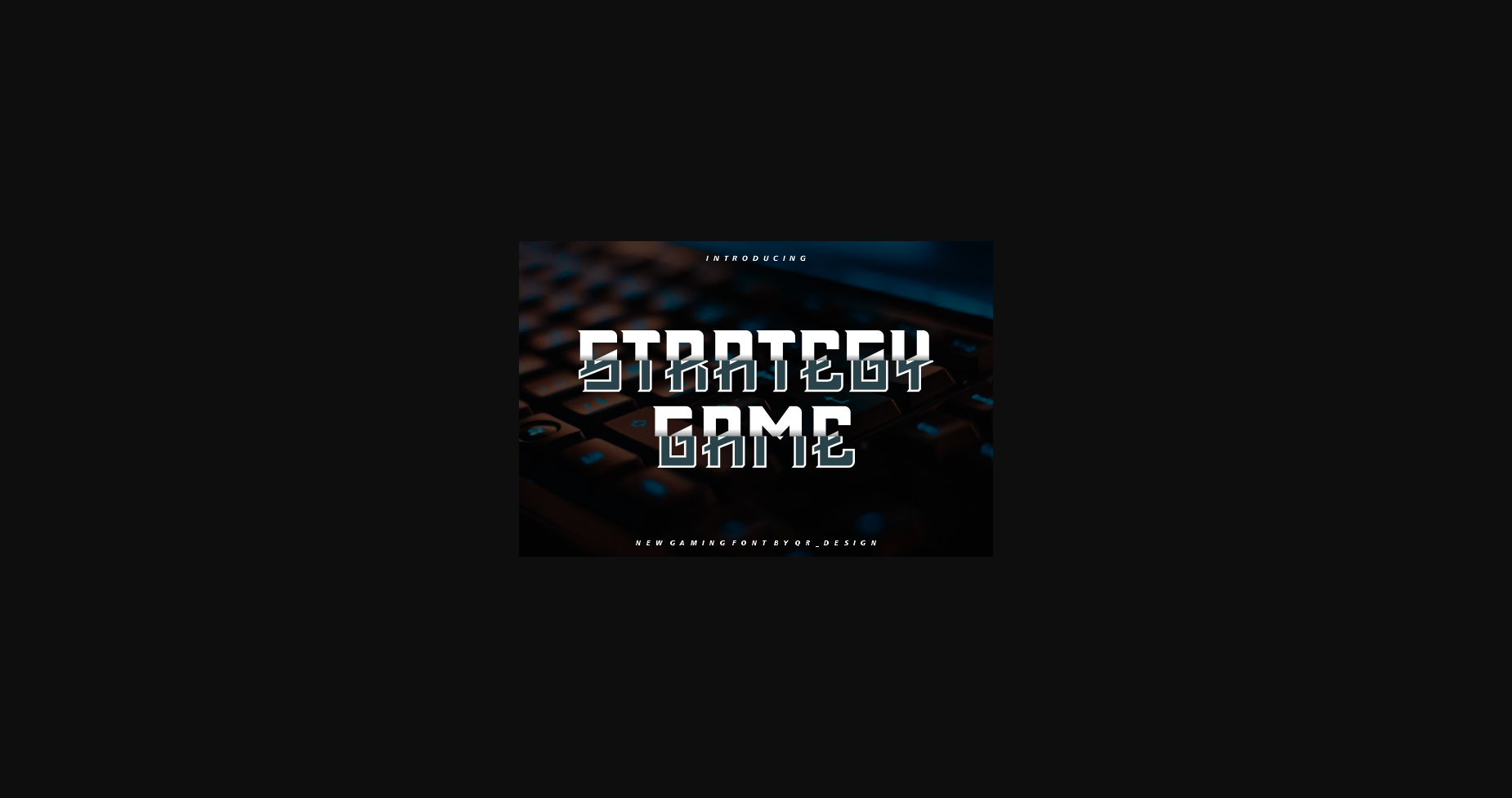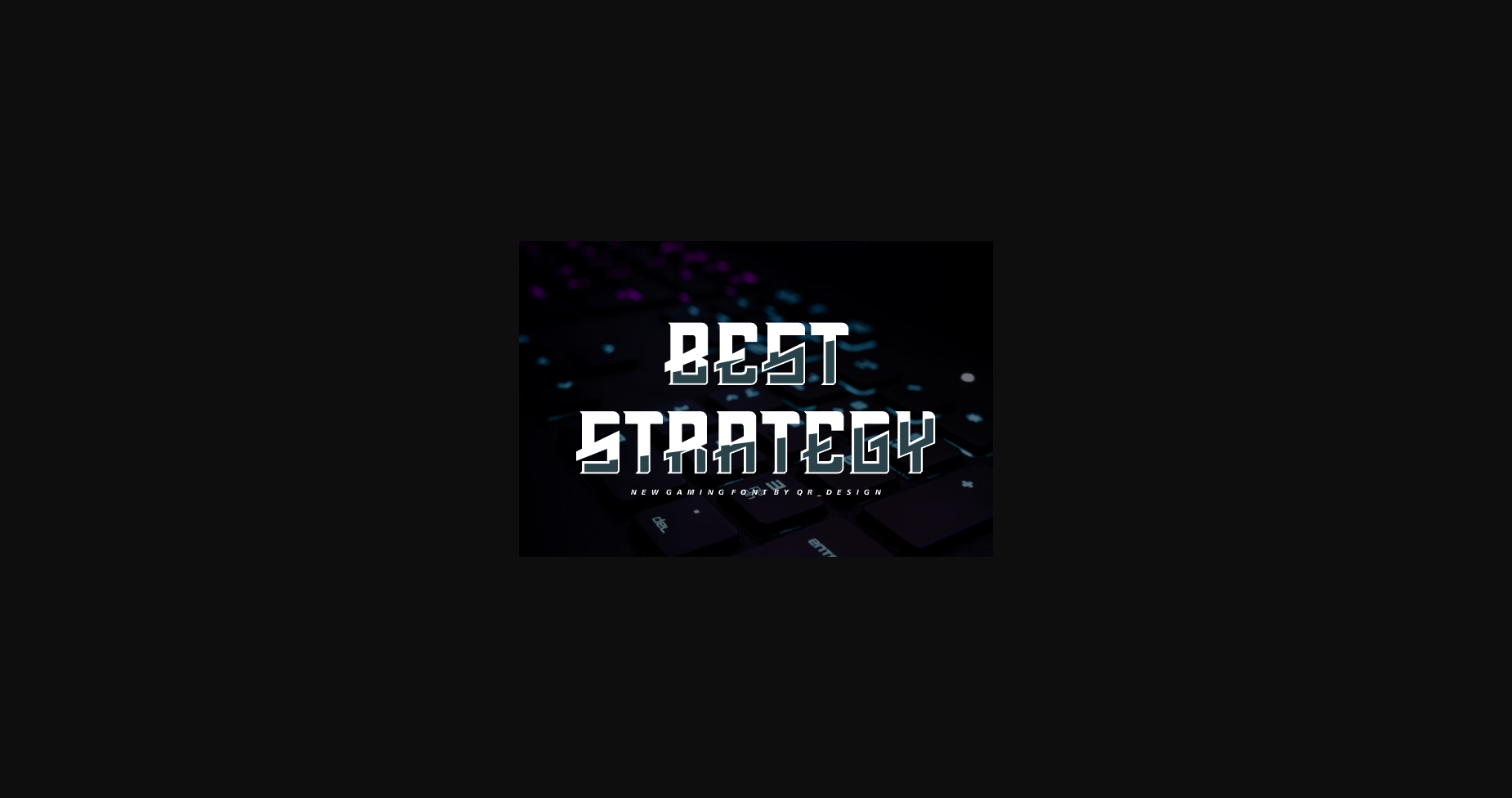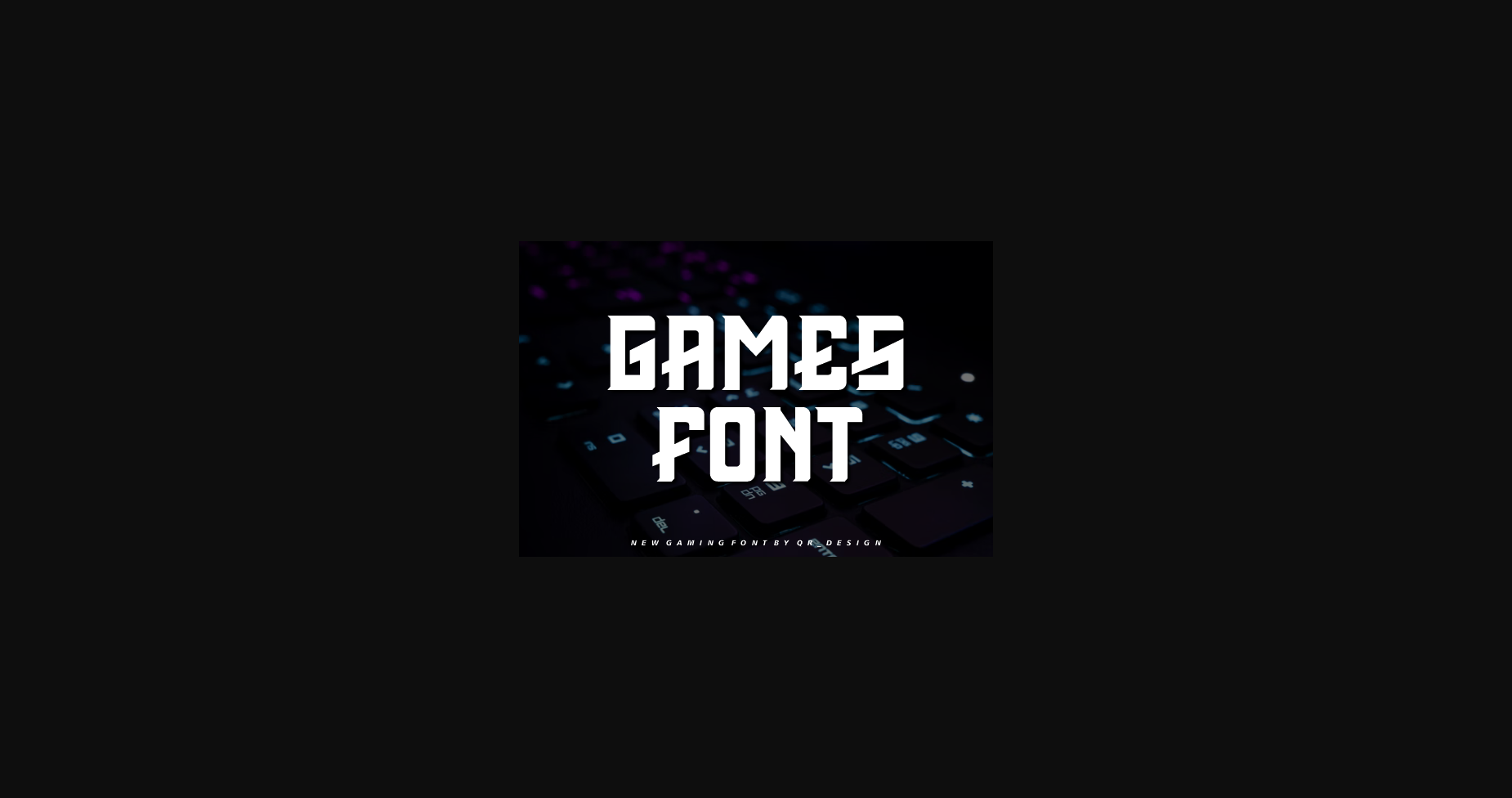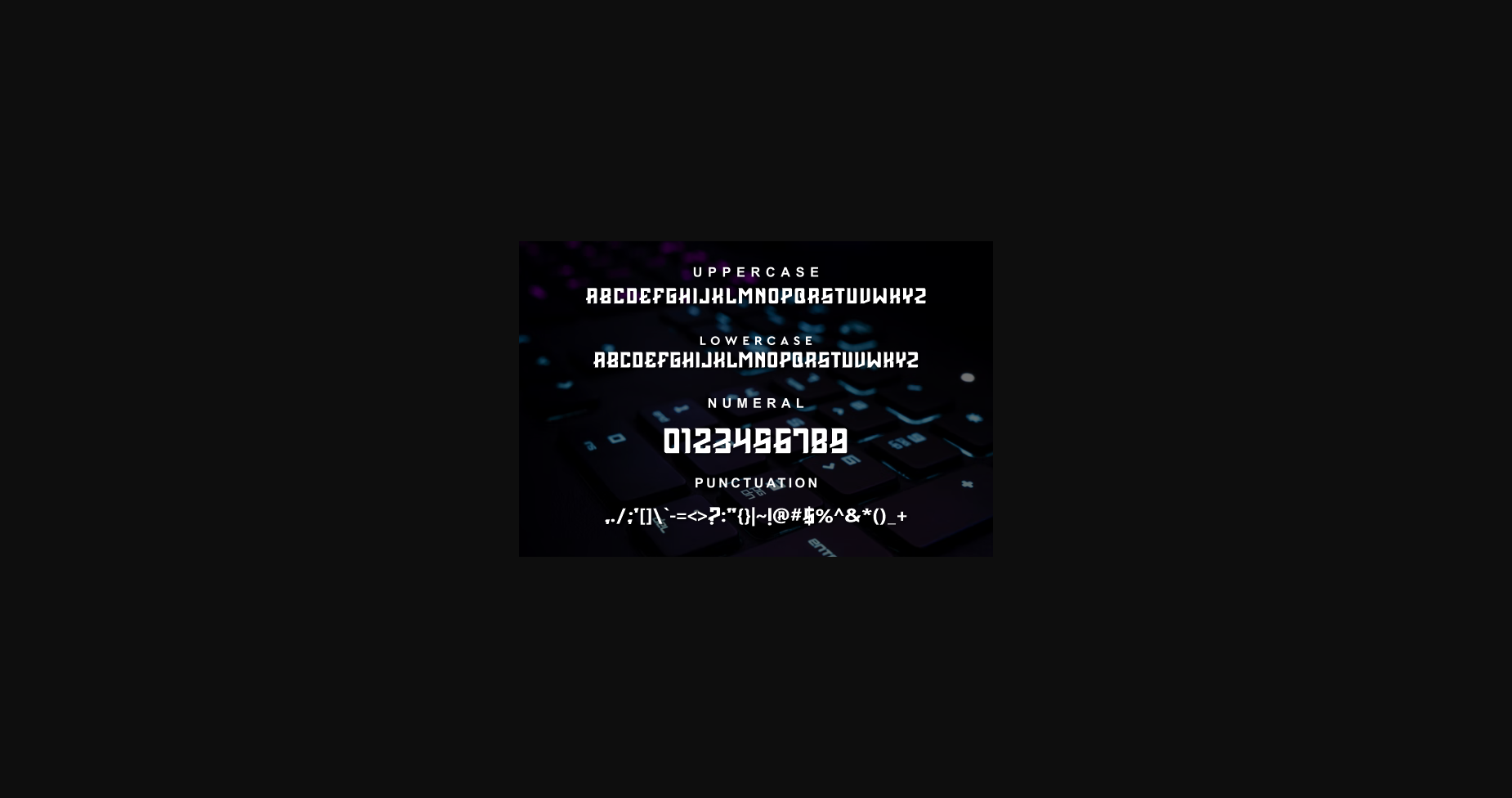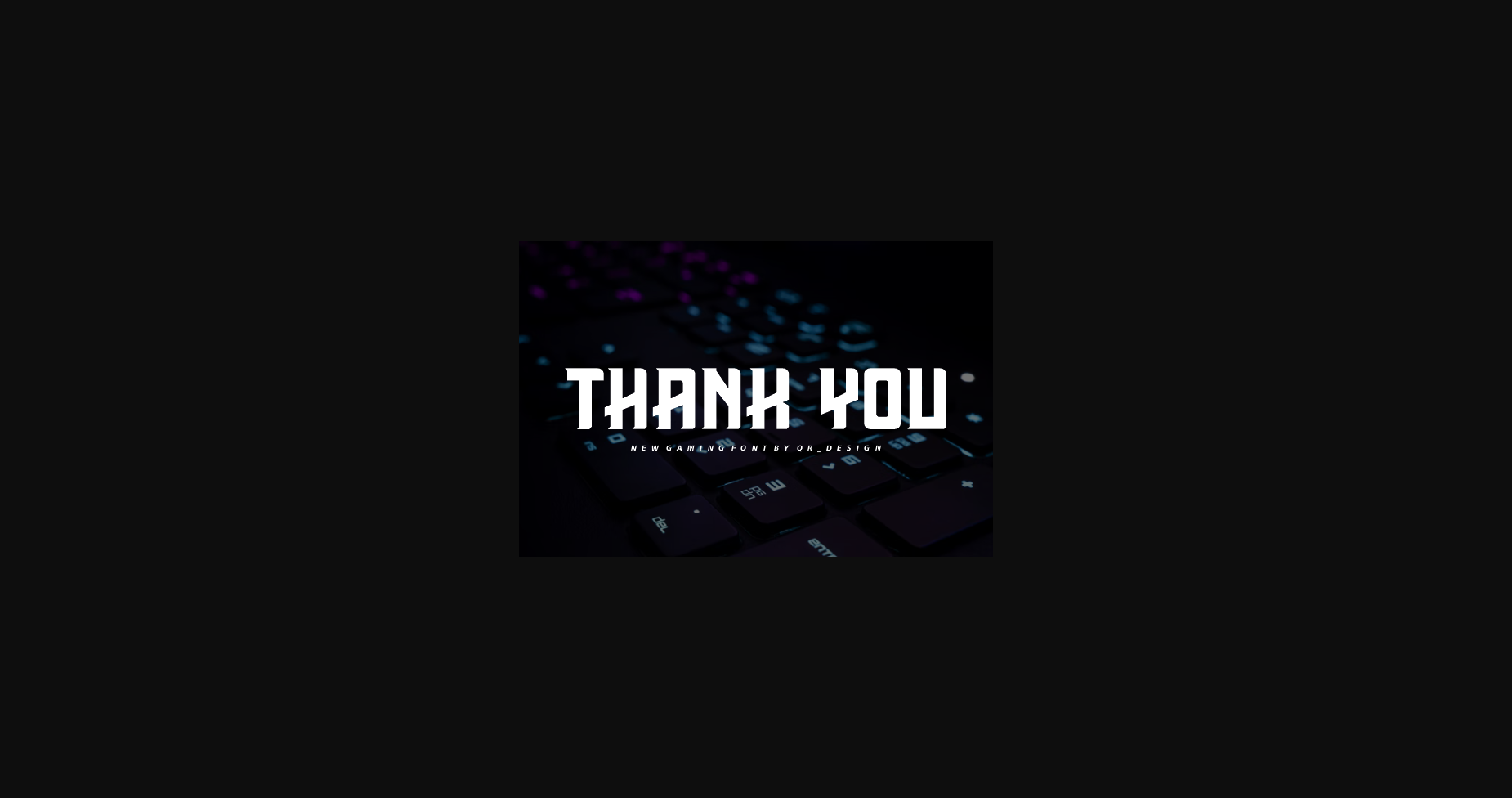
Strategy Game Font
About Strategy Game Font
Strategy Game is a bold and authentic display font. A charmed and effective display font for a wide range of game branding, as well as many other creative projects.